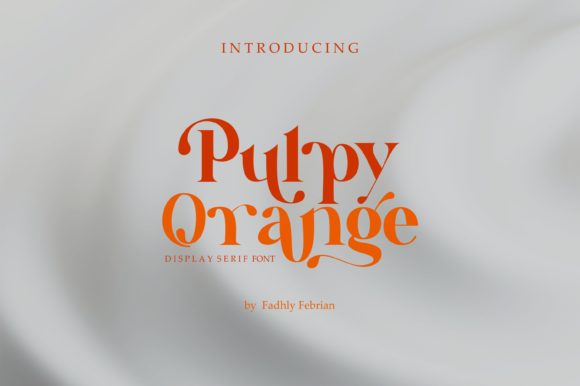
Discover Pulpy Orange, the serif font that exudes elegance, sophistication, and timeless appeal. With its carefully crafted curves and sharp edges, Pulpy Orange brings a touch of luxury and refinement to any design project.
Immerse yourself in the world of Pulpy Orange, where each letterform is a work of art. The font's delicate serifs and playful terminals create a visual symphony that dances across the page, captivating the eyes and leaving a lasting impression.
Unleash your creativity with Pulpy Orange, the perfect font for branding, logos, birthday invitations, posters, banner designs, and modern websites. Its versatility knows no bounds, allowing you to weave your words into stunning creations that resonate with your audience.
Embrace the allure of Pulpy Orange, a font that speaks to the heart and soul. Its timeless design transcends trends, ensuring that your creations remain relevant and captivating for years to come.
With Pulpy Orange, you hold the key to unlocking a world of design possibilities. Let your imagination soar as you craft designs that captivate and inspire, leaving an indelible mark on the minds of your audience.